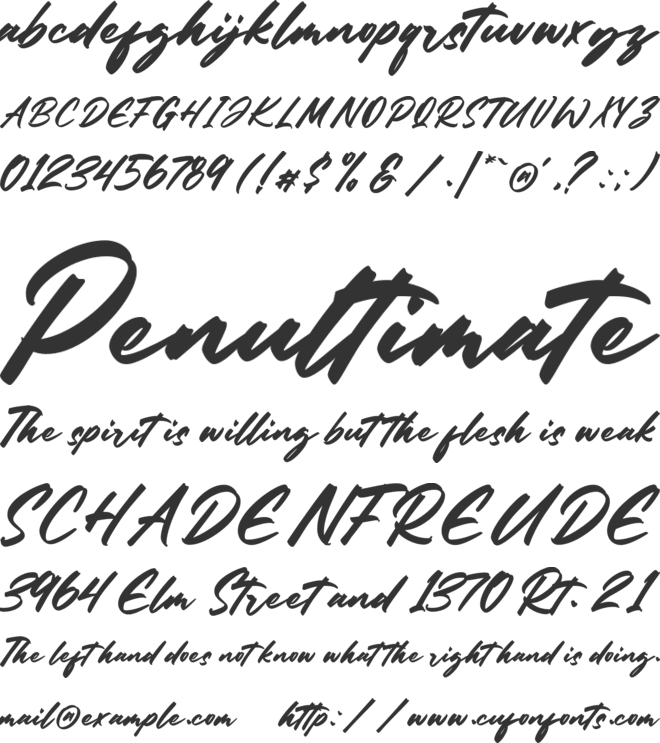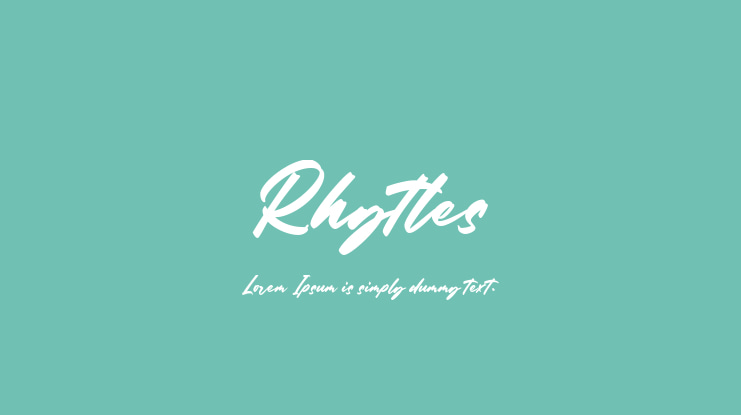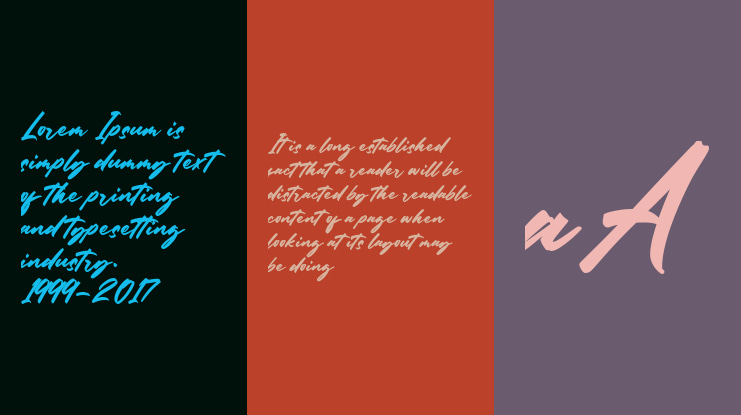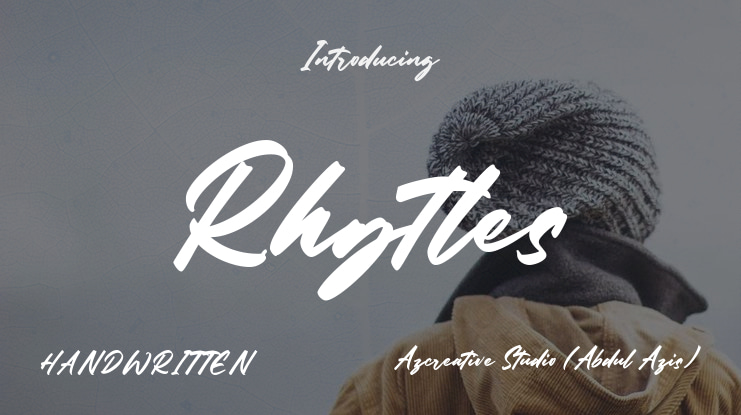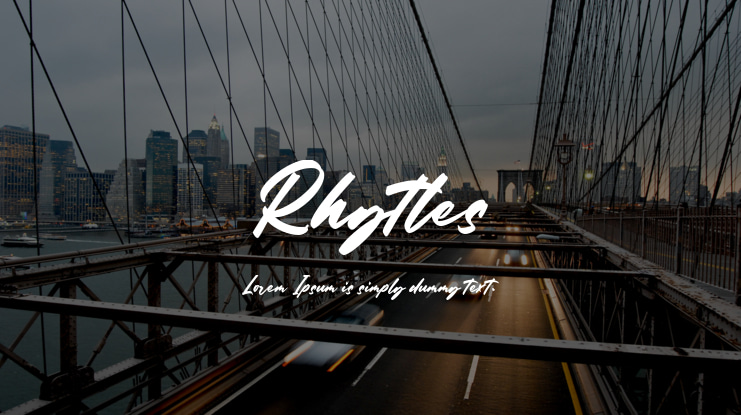
Azcreative Studio (Abdul Azis)
Rhytles is a cool and brushed handwritten font. It looks stunning on wedding invitations, thank you cards, quotes, greeting cards, logos, business cards and every other design which needs a customized touch.